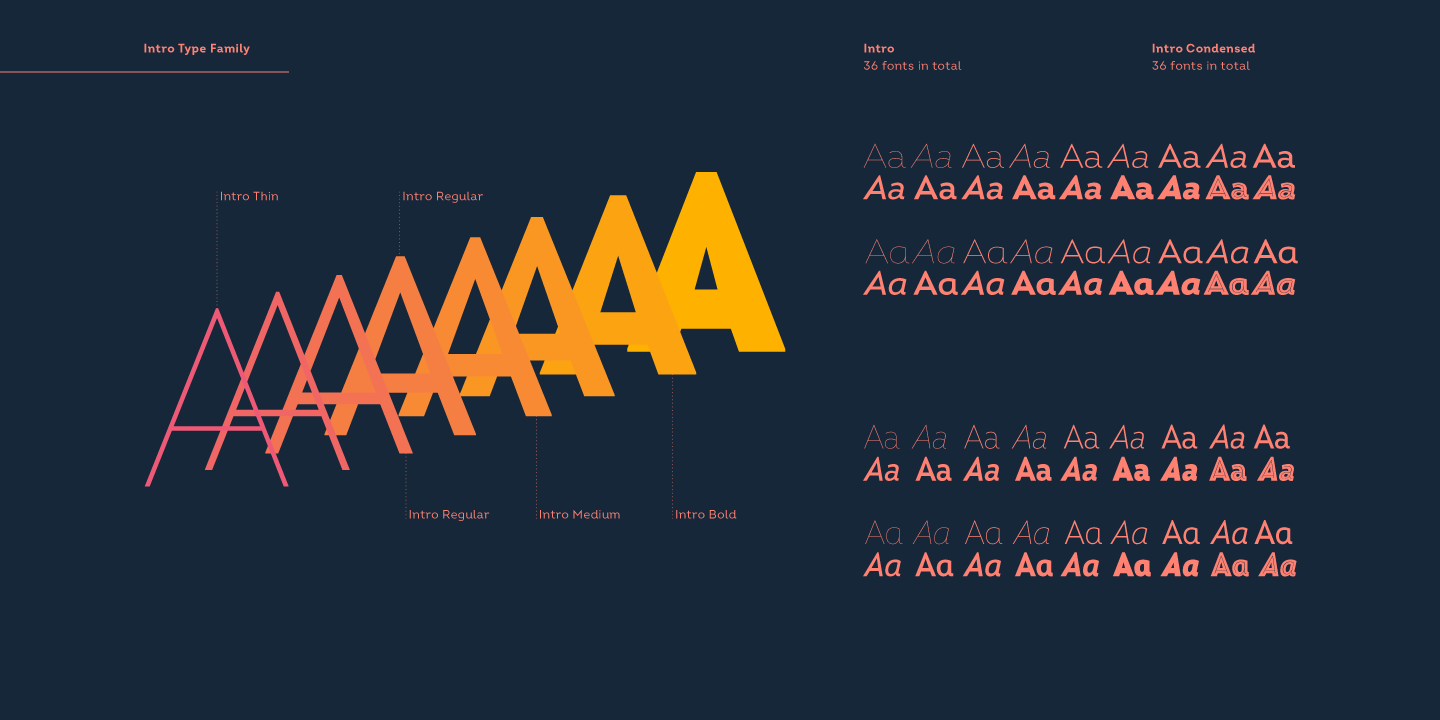
Intro Condensed Set (36 fonts)
Intro’s refined playfulness is further emphasized with additions of multiple ingredients, such as carefully adjusted Oblique alternatives next to the existing upright alternatives. All these styles are now available as a Condensed version. On top of that, there are 3 inline fonts.
The glyph case was expanded to cover Extended Latin and Cyrillic with adequate language localization. The OpenType features rewritten and improved now allow case-sensitive forms and contextual alternates, and plenty of stylistic alternates. The standard numerals set includes as well tabular figures and symbols, superiors and inferiors, numerators and denominators, plus fractions.
Intro's various styles and excellent legibility give it the versatility necessary to meet any type of graphic design challenge - web, print, motion graphics, etc. - and make it perfect for t-shirts, posters, and logos.